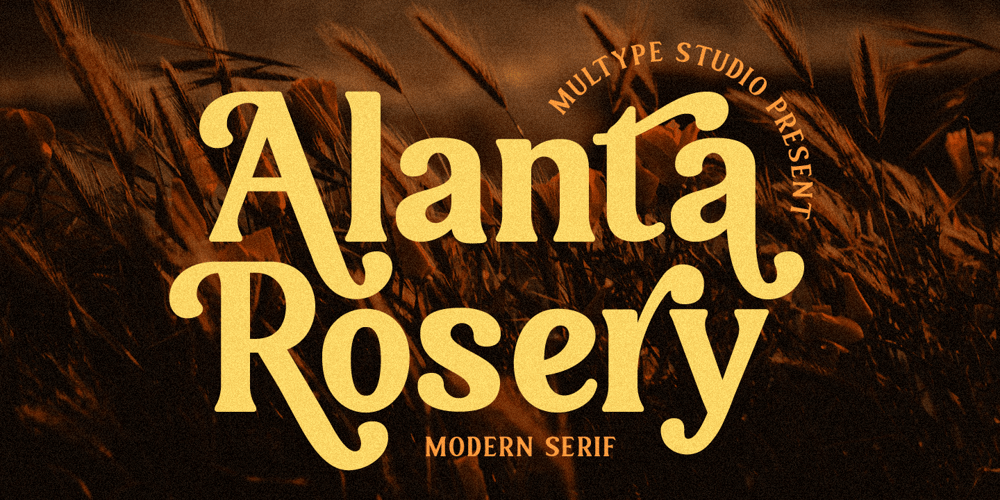
Alanta Rosery Font Family was designed by Mulia Yanto and published by Multype Studio. Alanta Rosery contains 1 styles and family package options. Alanta Rosery is a modern serif font.Alanta Rosery is perfect for branding, logos, social media, advertisements, product packaging, watermark, invitation, stationery, tshirt, prints, posters and moreWhat’s Included : Uppercase & Lowercase Stylistic Alternate Ligature Numbers & Symbols Works on PC / Mac Simple installations Accessible in the Adobe Illustrator, Adobe Photoshop, Adobe InDesign, even work on Microsoft Word PUA Encoded Characters, Fully accessible without additional design software. Multilingual support Thank you for your purchase!Hope you enjoy with our font!